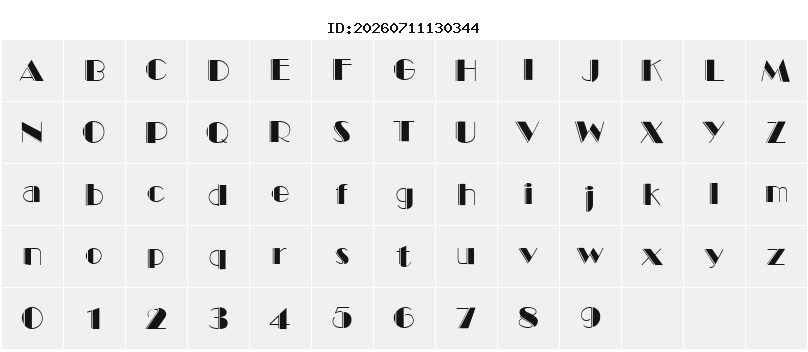
Marquee Engraved Preview
• Font Name: Marquee Engraved
• Full Font Name: Marquee Engraved
• PostScript Name: MarqueeEngraved
About Marquee Engraved.ttf
Marquee Engraved.ttf is a modern, elegant sans-serif font designed for ultimate readability and visual harmony. Perfect for branding, headlines, web design, and print materials.